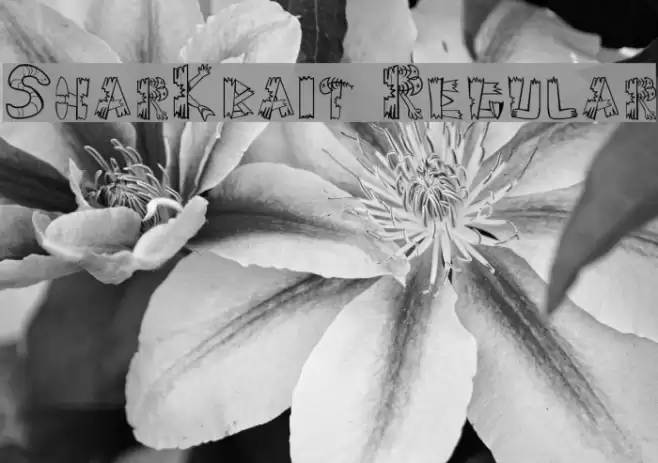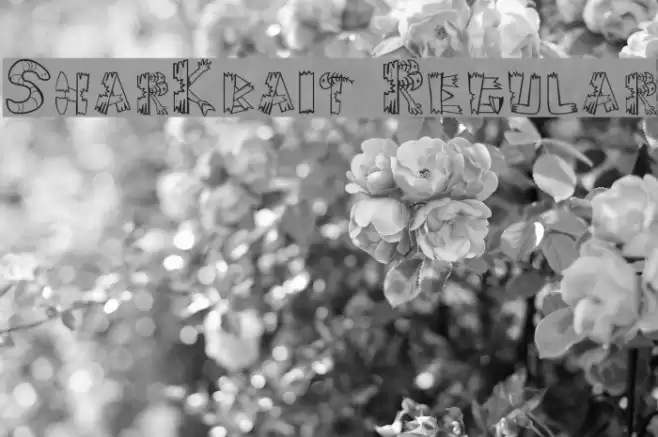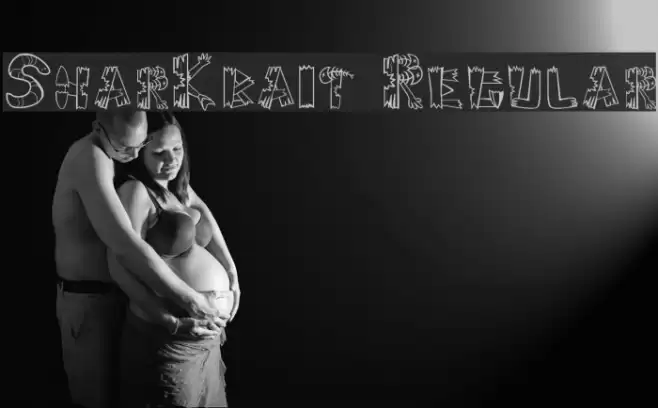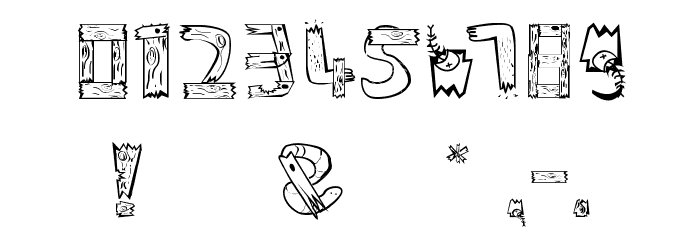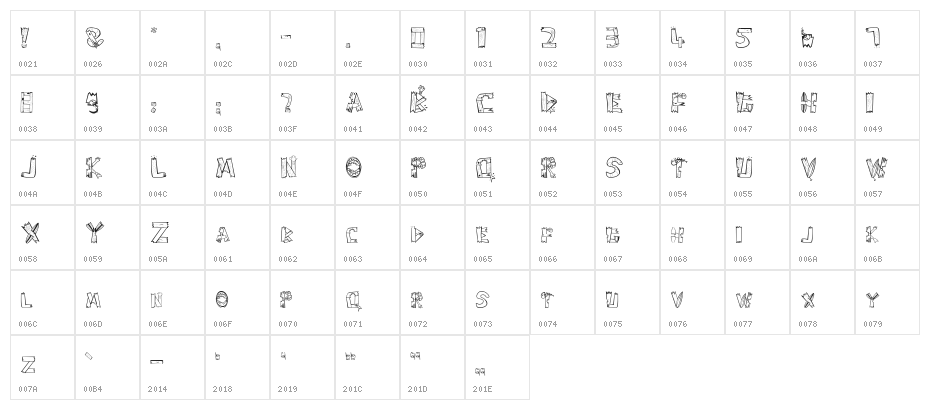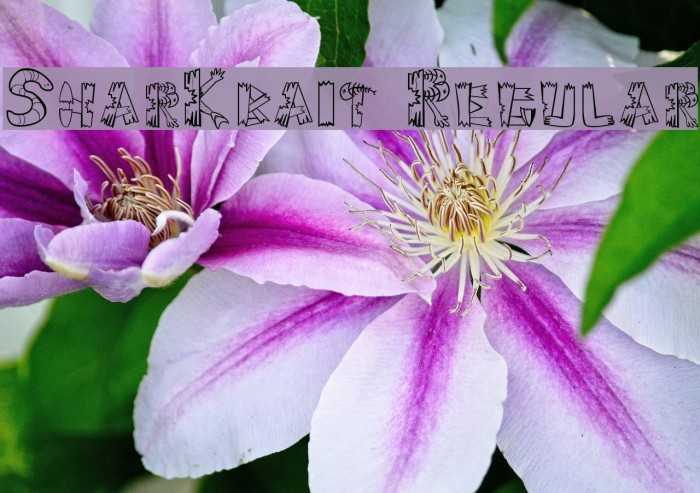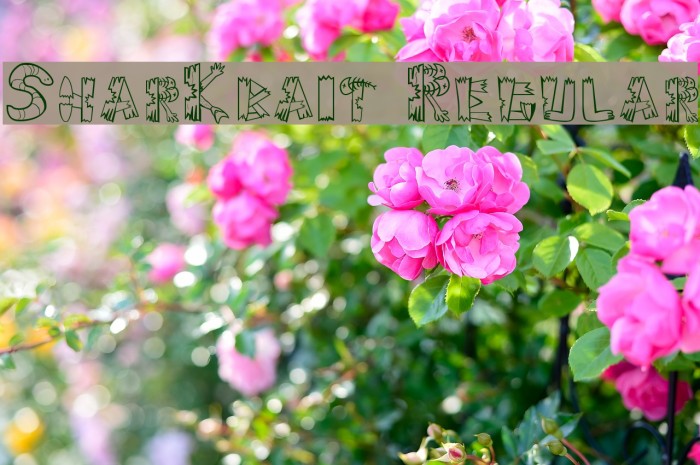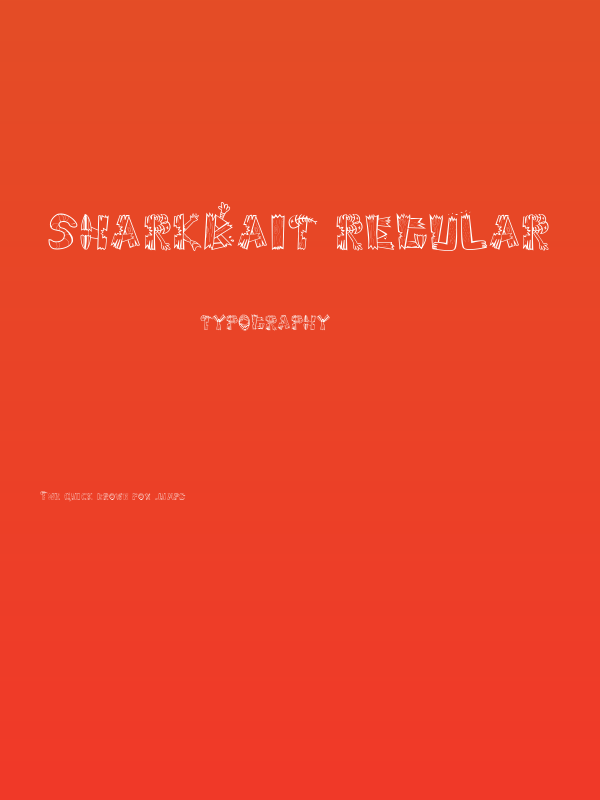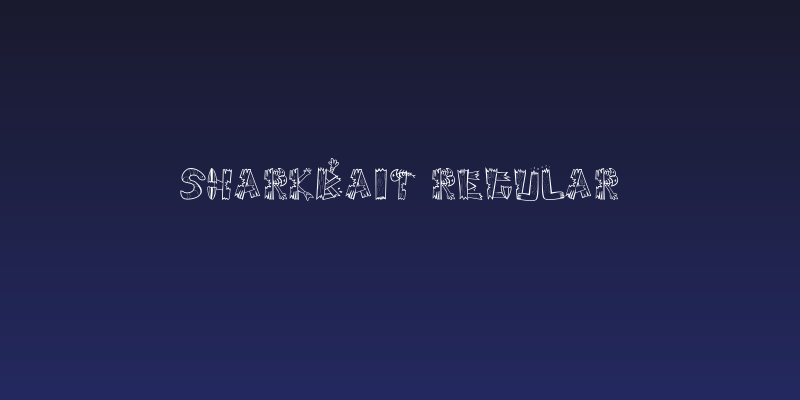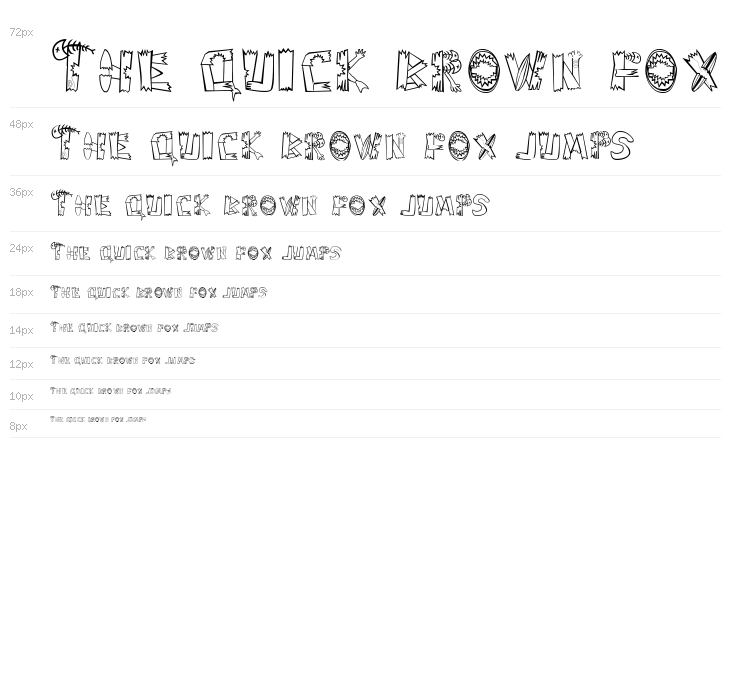
SharKbait Regular Font
SharKbait Regular Description
This font features a playful and edgy design, with each character resembling a piece of wood or a shark bite, creating a rugged and adventurous look. The letters are irregular and jagged, giving them a dynamic and energetic feel. The uppercase and lowercase letters maintain this theme, with unique details that make each character stand out. Numbers and special characters are also designed with the same distinctive style, ensuring consistency throughout. This font is perfect for projects that require a bold and unconventional aesthetic.
A playful, edgy font with characters resembling wood or shark bites from Comic fonts.
- Proposed Projects: Ideal for adventure-themed posters, children's book covers, or branding for outdoor activities.